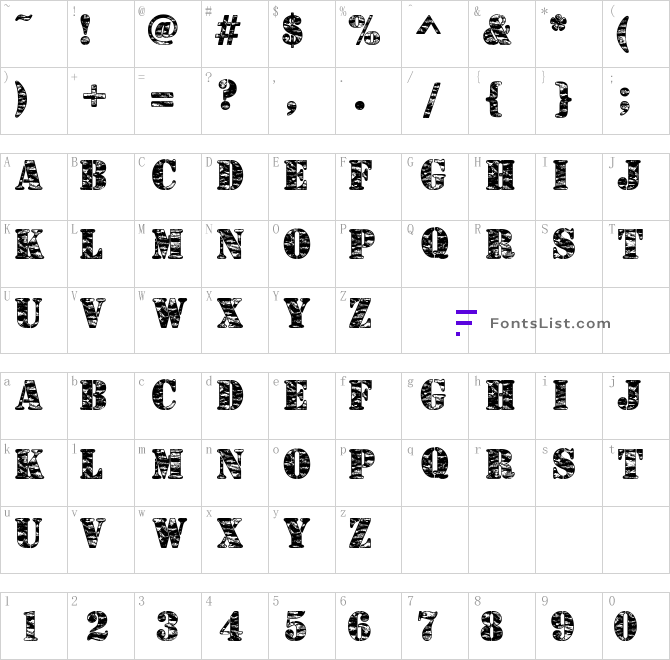
- Font Name:Camouflage Jungle
Camouflage-Jungle.ttf is a very beautiful artistic font, Camouflage-Jungle.ttf is widely used in the design and printing of various books and pictures,Camouflage-Jungle.ttf has a strong visual impact,Camouflage-Jungle.ttf is a commonly used font in newspapers, magazines and books, and is used in posters, e-commerce Poster design, store design, logo design, font design and other fields.Camouflage-Jungle.